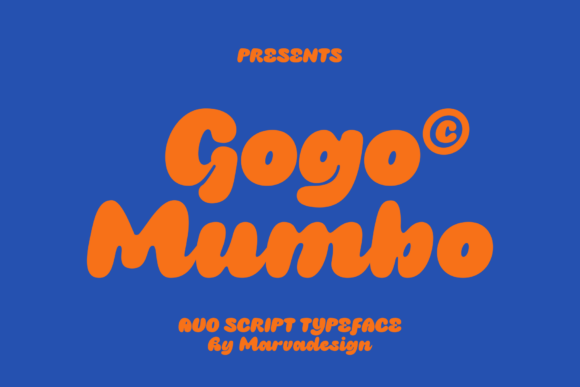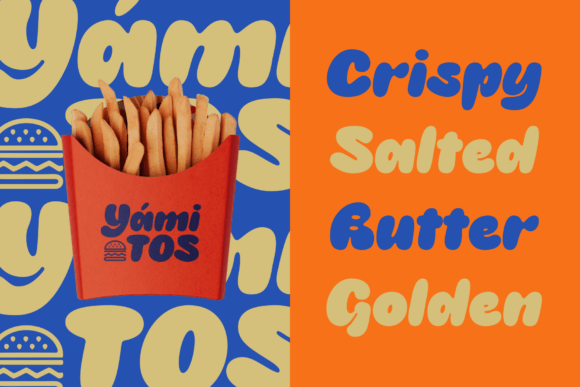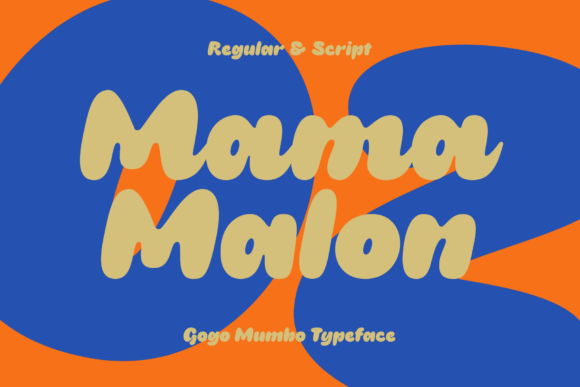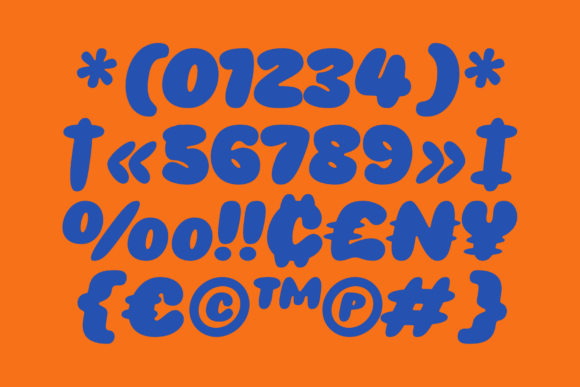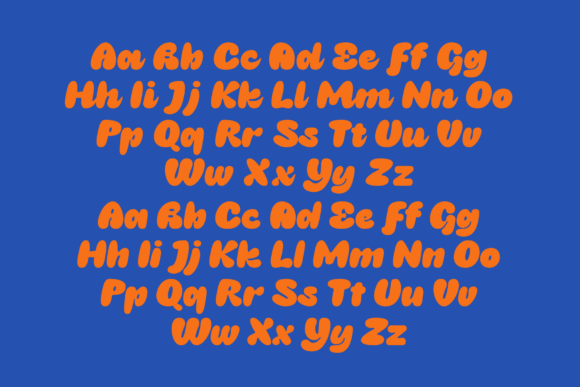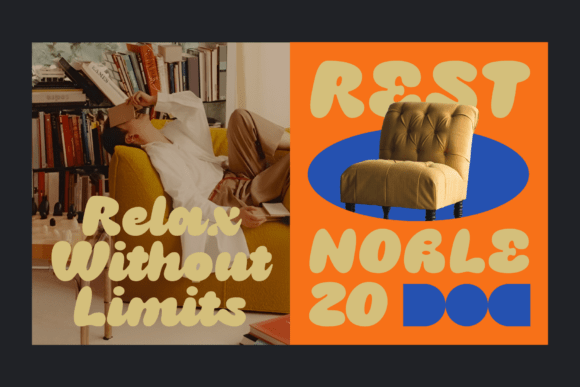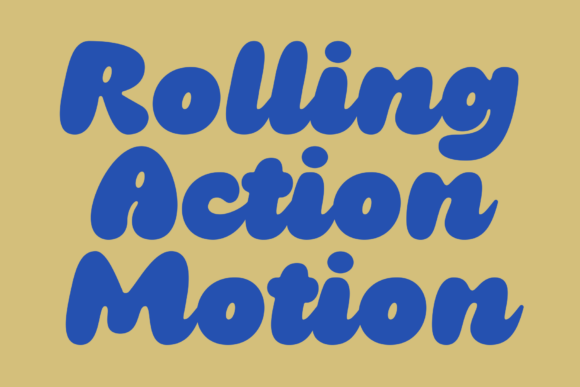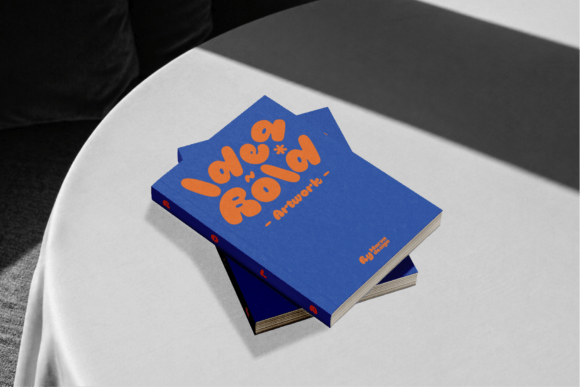
Gogo Mumbo Script Fonts
Gogo Mumbo is a masterclass in soft-touch maximalism. This typeface rejects sharp edges in favor of voluminous, pillowy forms and a spirited, tactile silhouette. It’s a visual embrace—chunky, charismatic, and pulsing with a hand-sculpted energy that feels both nostalgic and modern. The architecture of each letter celebrates the beauty of “squish,” utilizing deep, saturated strokes that demand a front-row seat on any canvas.
Engineered for high-volume impact, Gogo Mumbo thrives when scaled up, where its dense proportions and snug tracking create a powerful, unified block of text. The duo bridges the gap between a grounded, structural foundation and a flowing, gestural alternative, allowing designers to navigate between a steady cadence and a more expressive, lyrical motion. It is the definitive choice for projects that require a heavy dose of soul, optimism, and an undeniable presence.